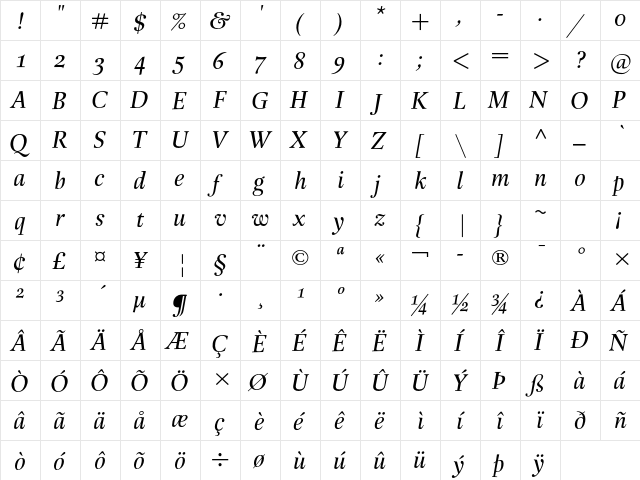
Buccardi Std Italic
Design Context for Buccardi Std Typeface
Buccardi Std offers clean, dependable letterforms without strong stylistic allegiance, making it a practical choice for designers who need flexibility. Its italic angle brings a sense of urgency and motion to the letterforms.
Pro Tip: Use Buccardi Std for emphasis, pull quotes, and subheadings where its slanted energy can add rhythm to the layout.